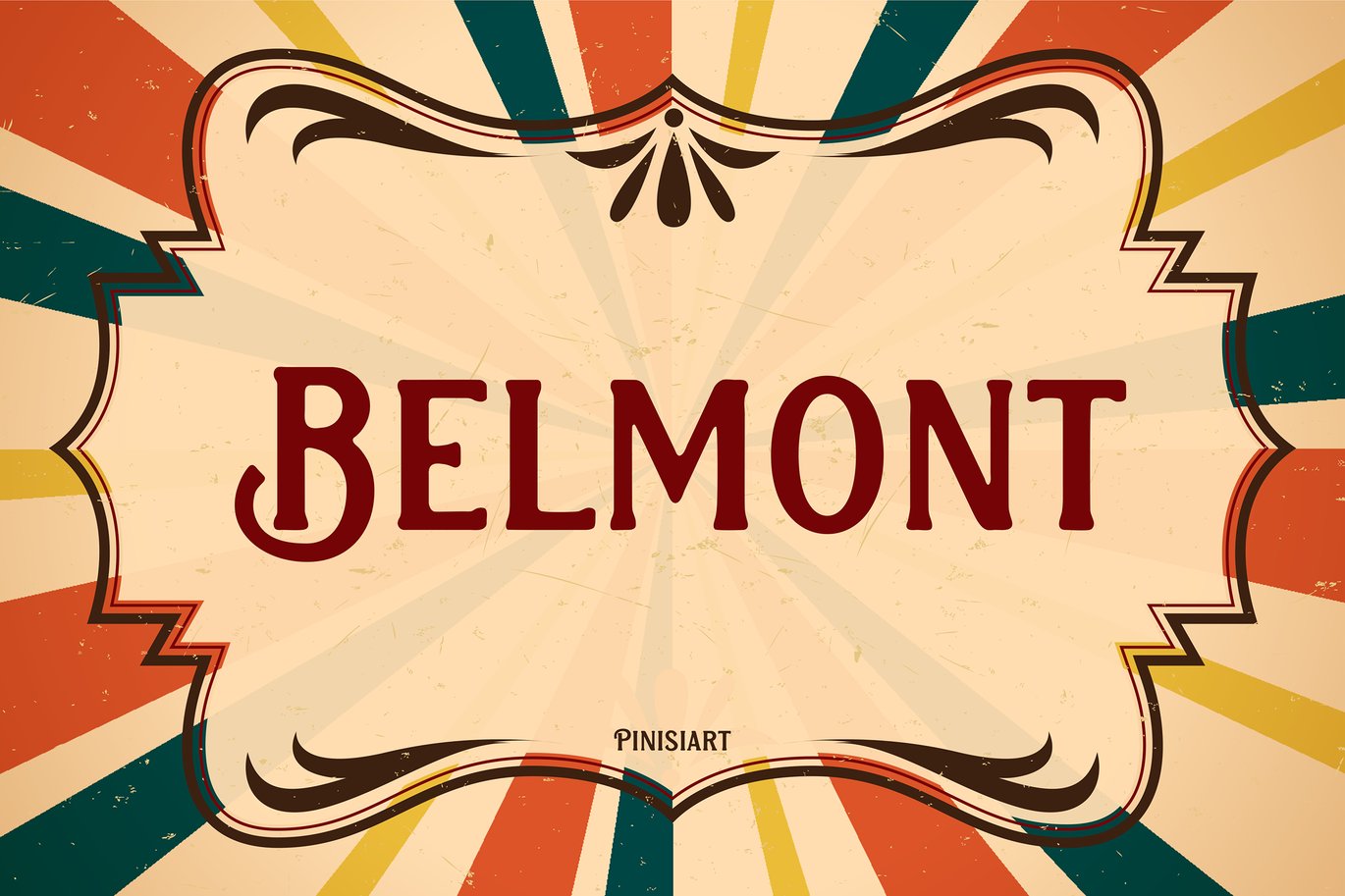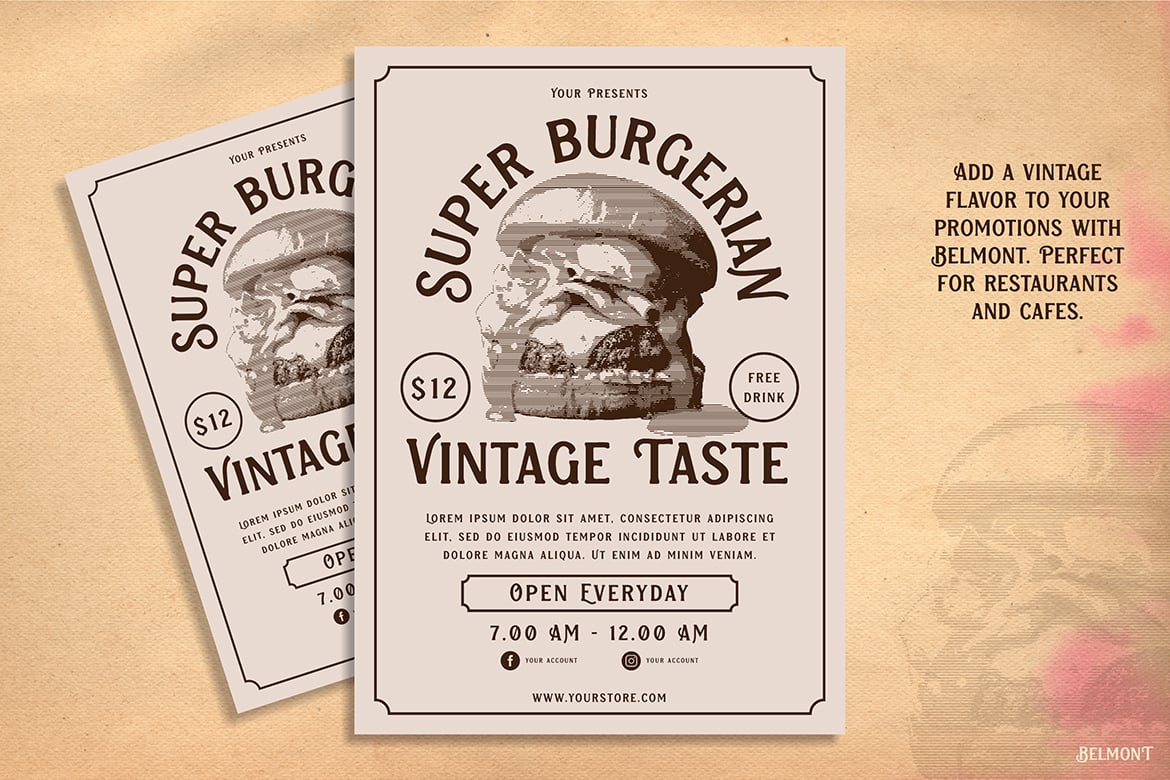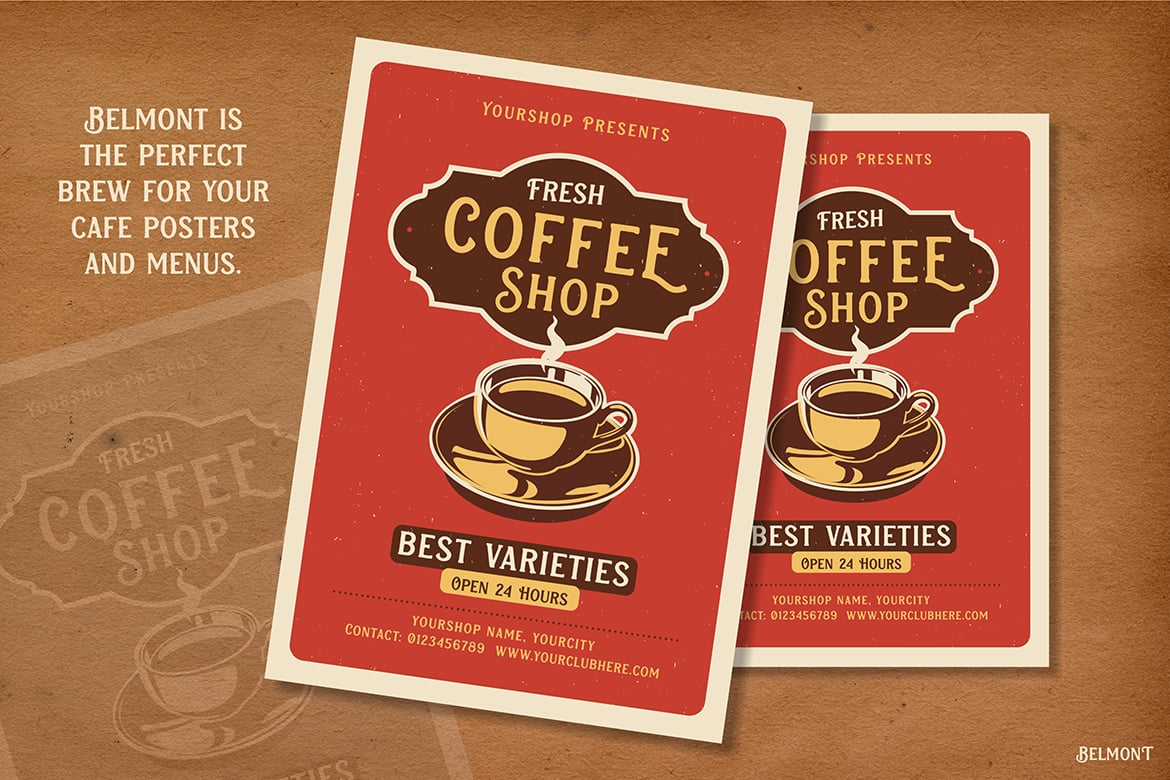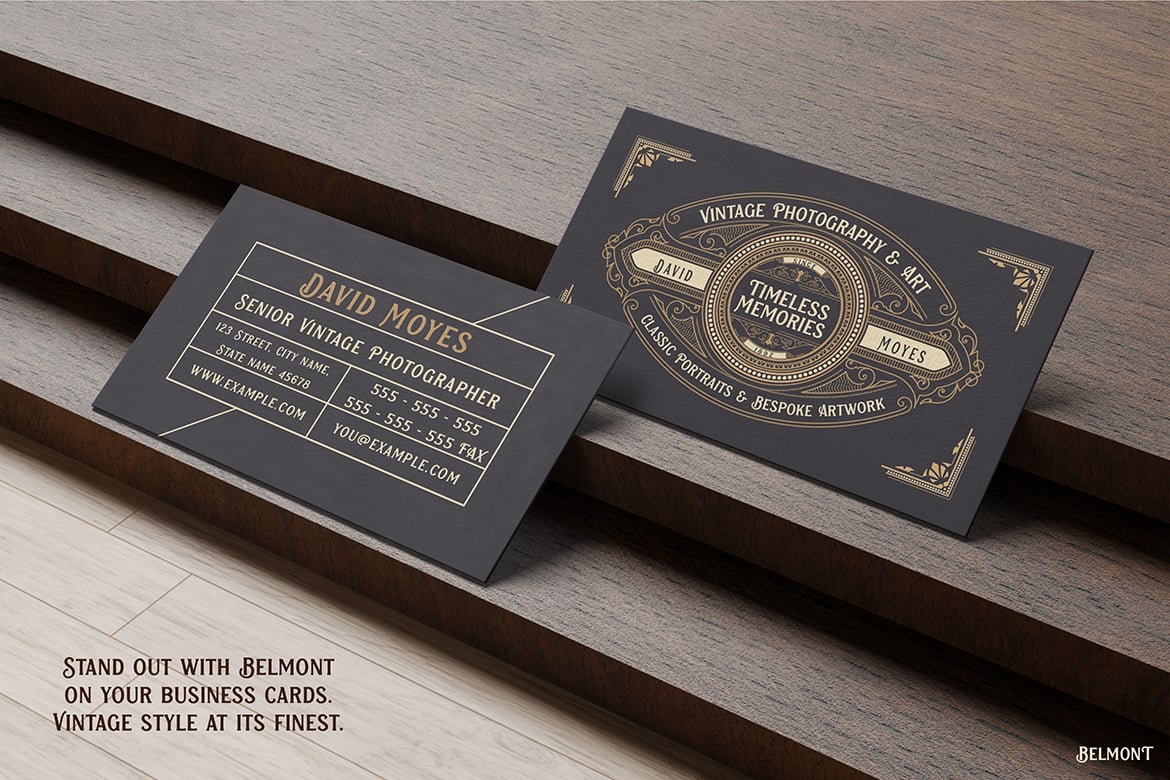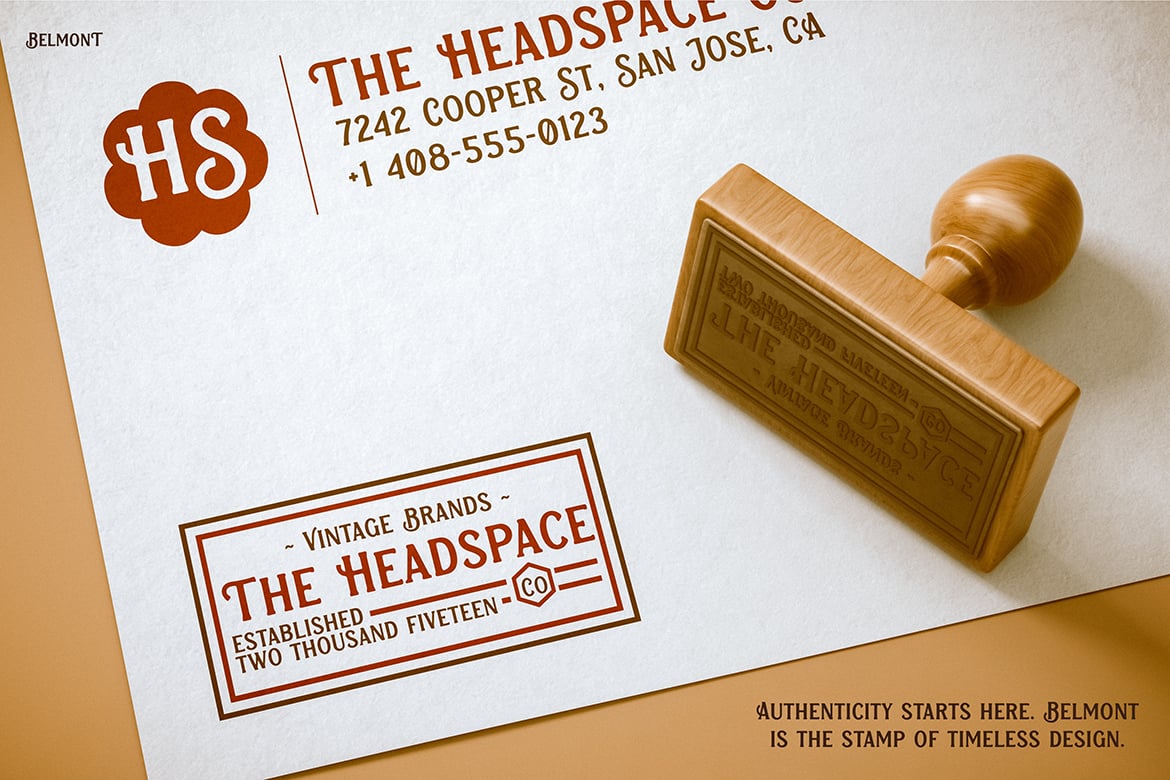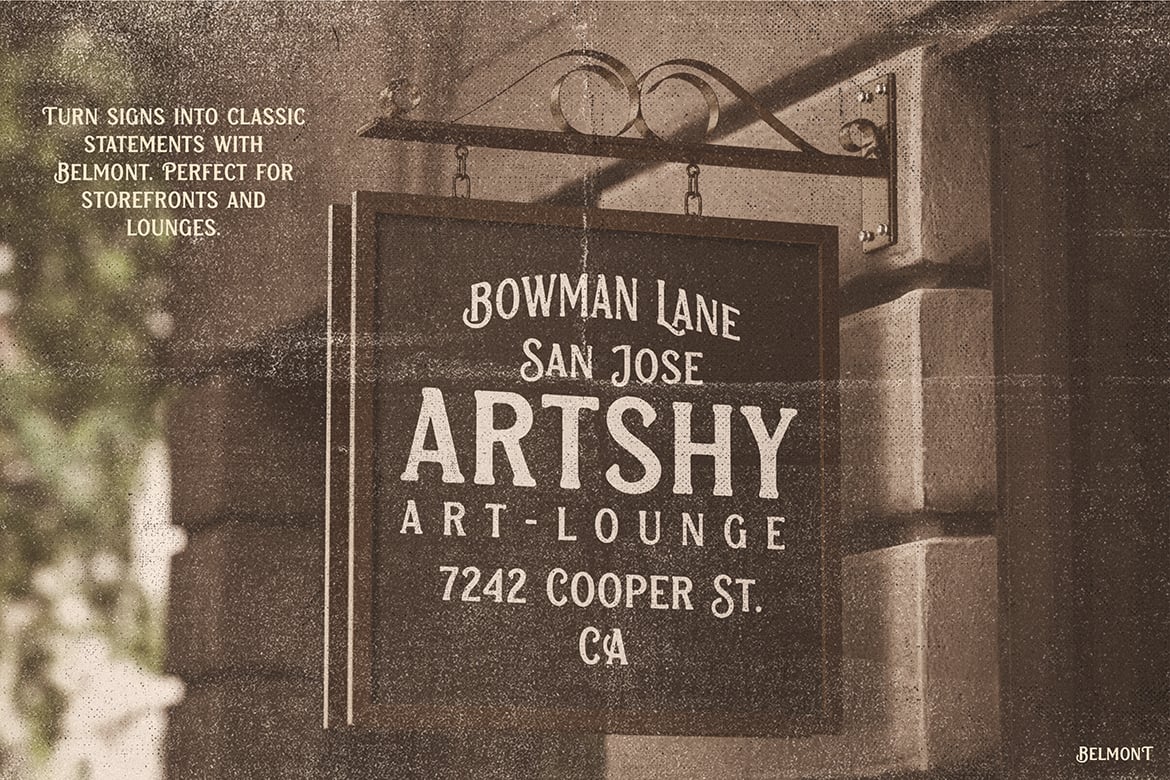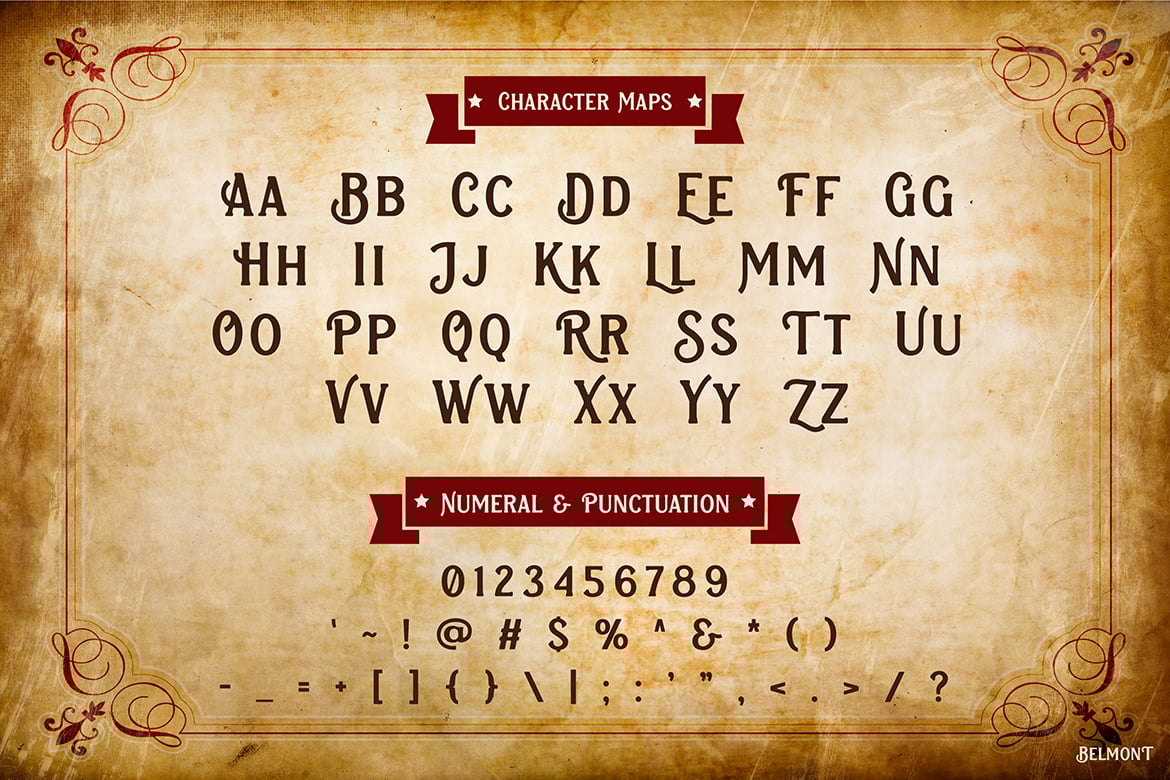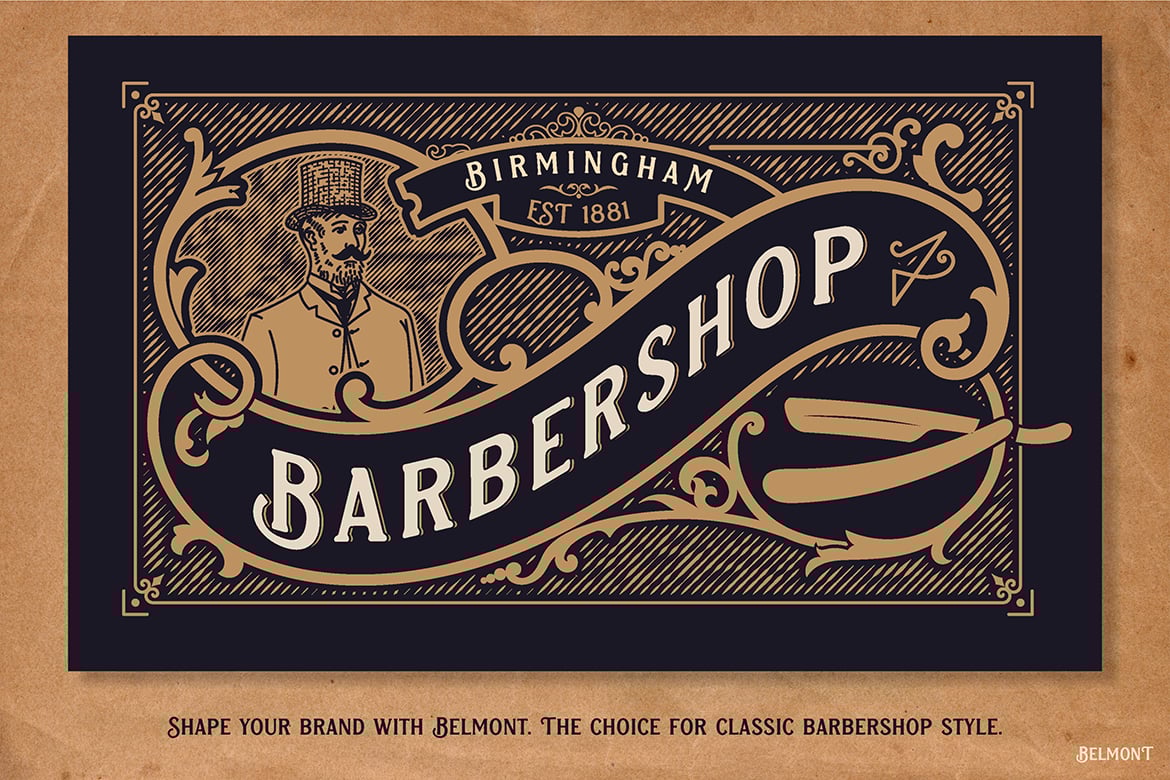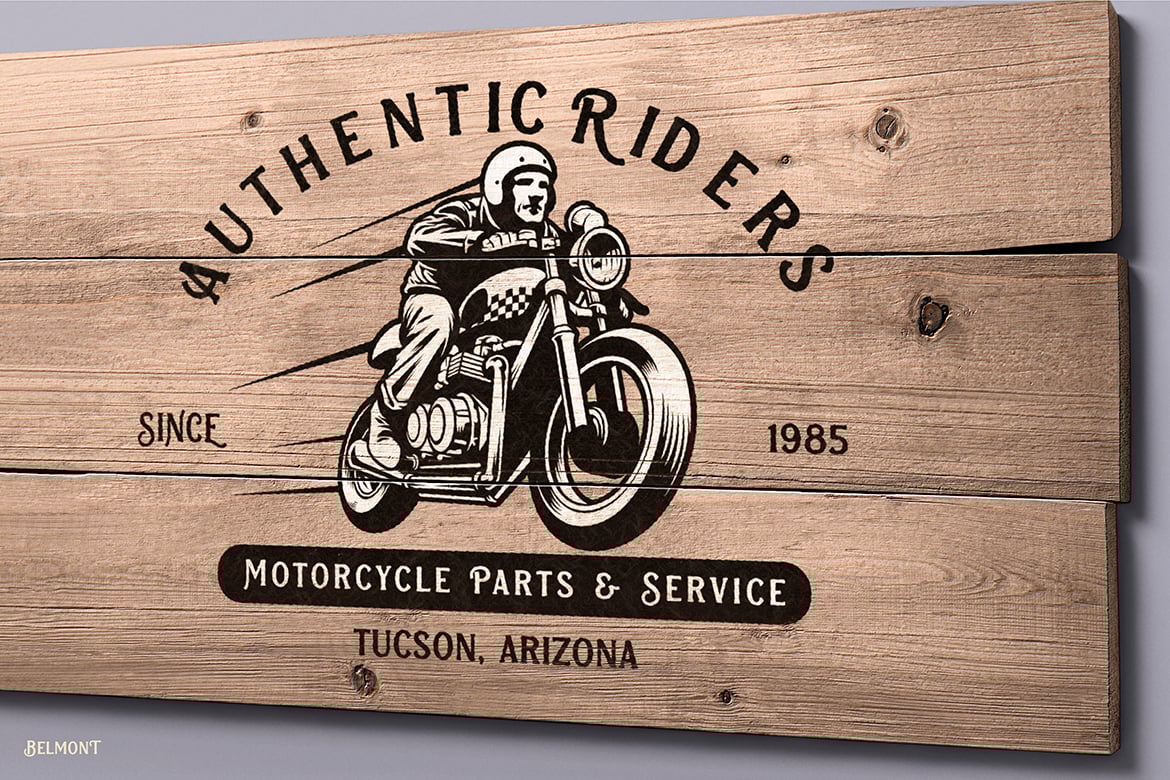
Vintage Font – Belmont
Belmont is a bold retro display font inspired by vintage aesthetics and classic signage styles. With its playful curves and dynamic strokes, Belmont captures the nostalgic charm of old-school advertisements and carnival posters. This font is perfect for adding a dash of retro flair to any creative project.
Market Applications
Event Posters & Signage
Ideal for concerts, festivals, or fairs, Belmont can be used to create bold, eye-catching posters and signs with a vintage vibe.
Retro Branding & Logos
Perfect for retro-themed businesses, such as diners, cafes, or breweries. Belmont adds personality and charm to logos and branding materials.
Product Packaging
Use Belmont for packaging vintage-inspired products like artisanal foods, craft beers, or handmade goods. Its bold style ensures products stand out on the shelves.
Social Media Graphics
Create unique and nostalgic designs for social media content. Belmont is great for promotional banners or themed posts that need a retro touch.
Custom Merchandise
Belmont’s bold design works well on t-shirts, tote bags, or mugs, especially for businesses or events with a vintage theme.